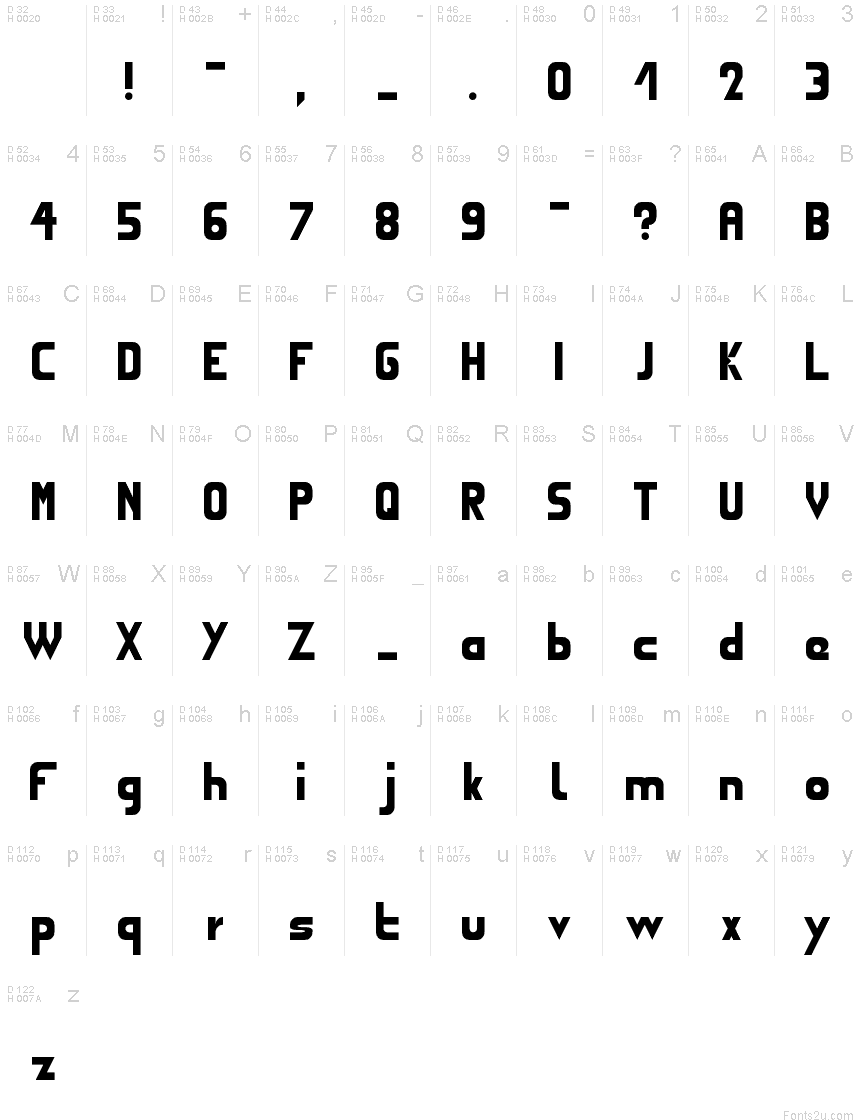
WLM Poster Rounded by Wolf Lambert is a free heavy sans serif with tall geometric forms and a blunt poster voice. The letters shift between broad and narrow proportions, with rounded arches, squared joins, and compact inner spaces.
Music venues and streetwear labels could use it for a forceful brand identity. It also suits concert posters, album graphics, and event signage. In those settings, its irregular widths can turn a name into the main graphic motif.